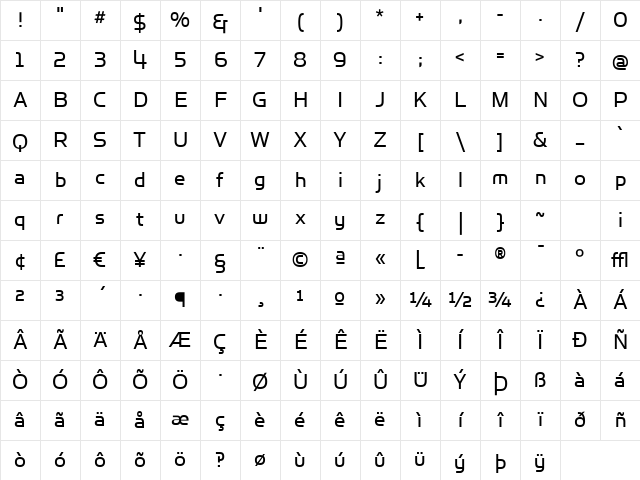
Complete SimianDisplay Medium glyph index. Displaying only characters natively supported by SimianDisplay Medium font.
SimianDisplay is built around its visual character rather than neutral utility - its distinctive forms are designed to make an impression at display sizes.
Font Pairing: Pair with a clean neutral sans-serif for body copy to let SimianDisplay's character lead without overwhelming the composition.
Pro Tip: Use SimianDisplay exclusively at display sizes - it was designed to be seen, not read at length. Let a neutral companion handle body copy.